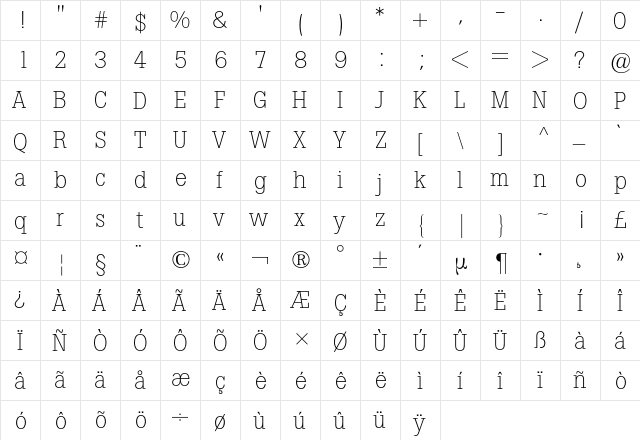
Boton BQ Regular
Design Context for Boton BQ Typeface
Boton BQ offers clean, dependable letterforms without strong stylistic allegiance, making it a practical choice for designers who need flexibility.